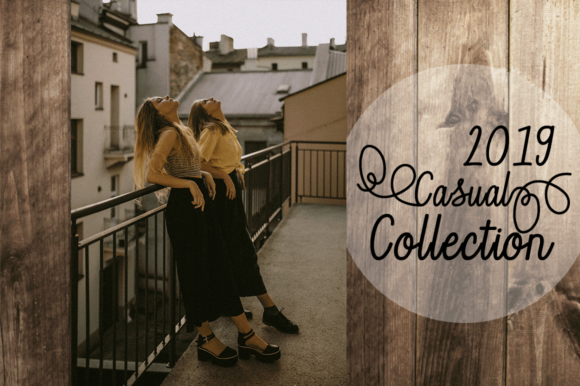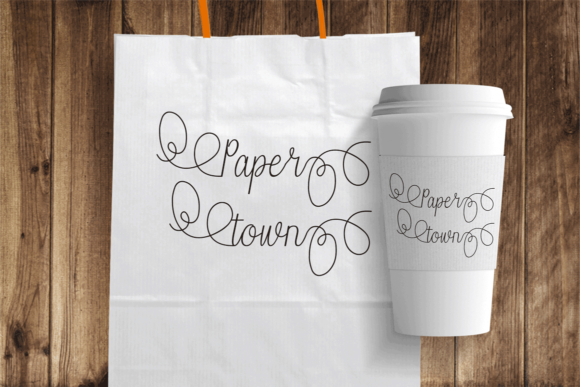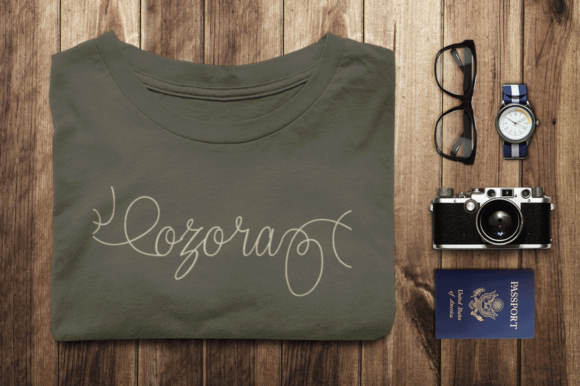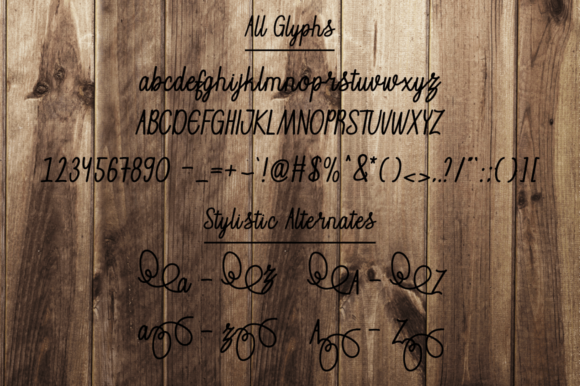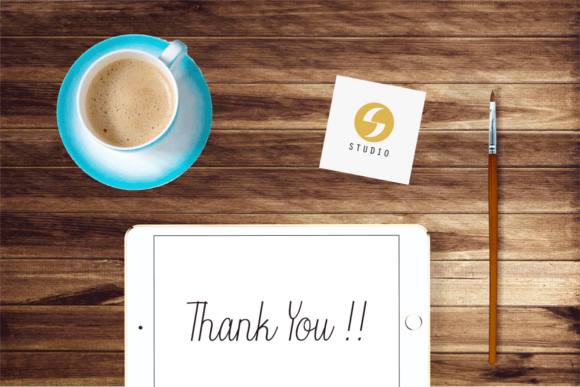
Introduction to Ozora Script Font
Have you ever been working on a creative project, pouring your heart and soul into every detail, only to realize that the perfect font is missing? That’s exactly what happened to many designers who discovered the Ozora Script Font. Its beautiful handwritten style can elevate any design, making it perfect for hot stamping, headings, labels, and more.
The Ozora Script Font is a high-quality design resource that offers a transparent background, allowing for seamless integration into any project. With its stylish letters, this font is a must-have for designers who want to add a touch of elegance to their work. And the best part? It’s available for free download, making it an accessible resource for designers of all levels.
Key Features of Ozora Script Font
- Unique, elegant script font perfect for creative projects and design resources.
- High-quality design featuring intricate details and smooth lines.
- Features a transparent background, making it ideal for use on colored or patterned backgrounds.
- Comes in a single weight, making it easy to use in a variety of design applications.
- Perfect for use in wedding invitations, quotes, and other creative projects where a beautiful script font is desired.
Honest Review: Ozora Script Font
I recently had the chance to work with the Ozora Script Font, and I must say it’s been a game-changer for my design projects. As a designer, I’m always on the lookout for high-quality fonts that can elevate my creative work, and this font definitely delivers.
Here are some things that work well: ✨
- Unique and elegant design that’s perfect for wedding invitations, greeting cards, and other special occasions.
- High-quality glyphs that ensure crisp and clear text, even at large font sizes.
- Transparent background, making it easy to place over any background image or color.
However, there are a few limitations: ⚠️
- The font can be a bit too ornate for some designs, so be sure to use it sparingly.
- No bold or italic variations, which may limit its use in certain situations.
Overall, I’m really impressed with the Ozora Script Font. It’s a valuable design resource that’s perfect for anyone looking to add a touch of elegance to their creative project. And the best part? It’s available for free download, making it a great option for designers on a budget.
Common Use Cases for Ozora Script Font
The Ozora Script Font is ideal for various design projects, including:
- Typography-based art and graphics
Alternatives to Ozora Script Font
The Great Vibes Font is a beautiful, high-quality script font perfect for creative projects. It features a transparent background and comes in various weights, making it suitable for both digital and print designs. When to use: For projects requiring a modern, elegant script font, such as branding, invitations, and digital assets. How it compares to Ozora Script Font: Great Vibes Font has a more refined and sophisticated look, while Ozora Script Font has a more playful and casual feel.
The Pacifico Font is a popular, high-quality script font ideal for design projects that require a warm and inviting tone. It features a range of weights and styles, including a transparent background, making it suitable for various design applications. When to use: For projects requiring a friendly, approachable script font, such as branding, advertising, and editorial content. How it compares to Ozora Script Font: Pacifico Font has a more relaxed and casual look, while Ozora Script Font has a more dynamic and energetic feel.
The Alex Brush Font is a high-quality script font perfect for design projects that require a touch of elegance and sophistication. It features a range of weights and styles, including a transparent background, making it suitable for various design applications. When to use: For projects requiring a refined and elegant script font, such as branding, invitations, and digital assets. How it compares to Ozora Script Font: Alex Brush Font has a more subtle and refined look, while Ozora Script Font has a more dramatic and attention-grabbing feel.